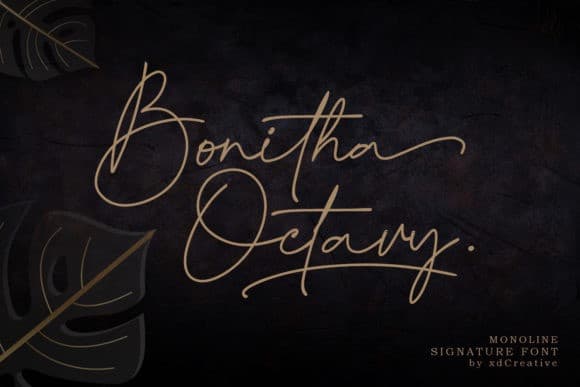
Bonitha Octavy Handwritten Font
Bonitha Octavy Font, is a handwriting signature with classic monoline style and elegant touch, inspired by lettering on the old vintage postcard and manuscript .